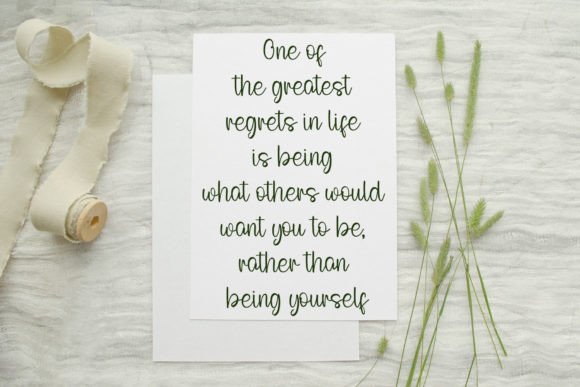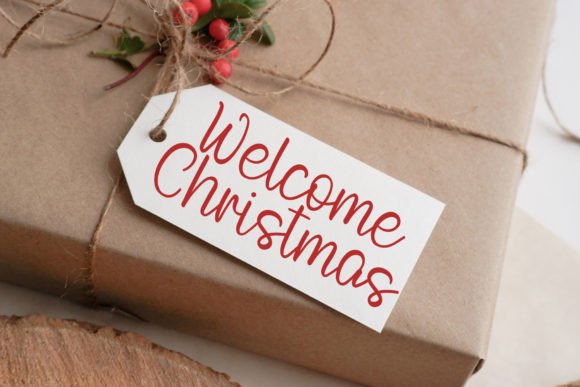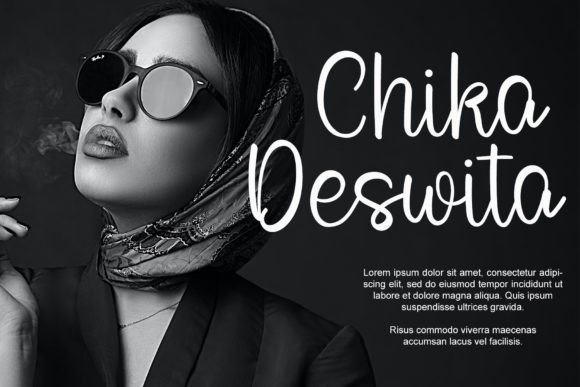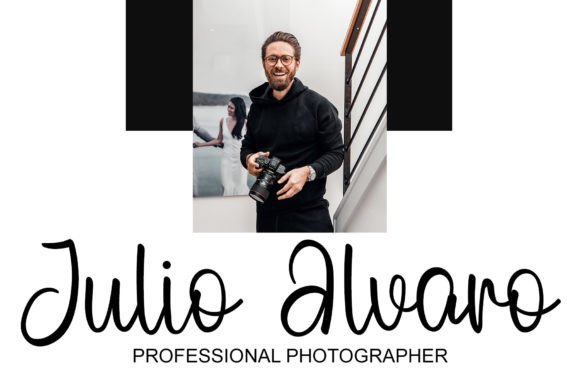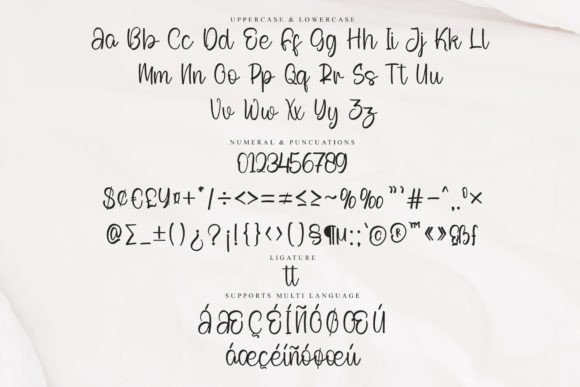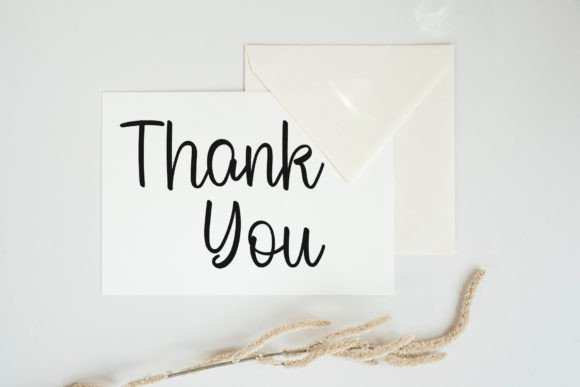
Breatly Font: The Sweet and Cursive Handwritten Font for Your Design Needs
Are you looking for a font that can add a touch of sweetness and romance to your designs? Look no further than Breatly Font! This beautiful, cursive handwritten font is perfect for a variety of design projects, from branding and logos to wedding materials and greeting cards. In this article, we’ll take a closer look at Breatly Font and explore its features, benefits, and uses.
What is Breatly Font?
Breatly Font is a sweet and cursive handwritten font that is designed to add a joyful and romantic touch to your designs. Its gentle curves and flowing lines make it perfect for creating beautiful and eye-catching text. Whether you’re working on a branding project, a wedding invitation, or a marketing promotion, Breatly Font is sure to impress.
Features of Breatly Font
Breatly Font has several features that make it a great choice for designers and crafters. Some of its key features include:
- Sweet and Cursive Design: Breatly Font has a beautiful, cursive design that is sure to add a touch of sweetness and romance to your designs.
- Handwritten Style: This font has a handwritten style that gives it a personal and unique touch.
- Versatile: Breatly Font is versatile and can be used for a variety of design projects, from branding and logos to wedding materials and greeting cards.
- Easy to Read: Despite its cursive design, Breatly Font is easy to read and can be used for both headings and body text.
Benefits of Using Breatly Font
There are several benefits to using Breatly Font in your designs. Some of the benefits include:
- Adds a Touch of Romance: Breatly Font is perfect for adding a touch of romance and sweetness to your designs.
- Perfect for Branding: This font is perfect for branding projects, as it can help to create a unique and memorable identity for your business.
- Great for Wedding Designs: Breatly Font is perfect for wedding designs, including invitations, programs, and other wedding materials.
Uses of Breatly Font
Breatly Font can be used for a variety of design projects, including:
- Branding and Logos: This font is perfect for creating unique and memorable logos and branding materials.
- Wedding Materials: Breatly Font is perfect for wedding invitations, programs, and other wedding materials.
- Greeting Cards: This font is great for creating beautiful and eye-catching greeting cards.
- Fashion and Lookbooks: Breatly Font is perfect for fashion designs, including lookbooks and marketing promotions.
- Marketing Promotions: This font can be used for marketing promotions, including flyers, brochures, and other promotional materials.
Tips for Using Breatly Font
Here are a few tips for using Breatly Font in your designs:
- Use it for Headings: Breatly Font is perfect for headings and titles, as it can help to add a touch of sweetness and romance to your designs.
- Pair it with Other Fonts: This font can be paired with other fonts to create a unique and eye-catching design.
- Experiment with Colors: Breatly Font looks great in a variety of colors, so don’t be afraid to experiment and find the perfect color for your design.
Breatly Font is a beautiful, cursive handwritten font that is perfect for adding a touch of sweetness and romance to your designs. Its versatile design makes it perfect for a variety of projects, from branding and logos to wedding materials and greeting cards. With its easy-to-use design and beautiful curves, Breatly Font is sure to become a favorite font in your design arsenal.